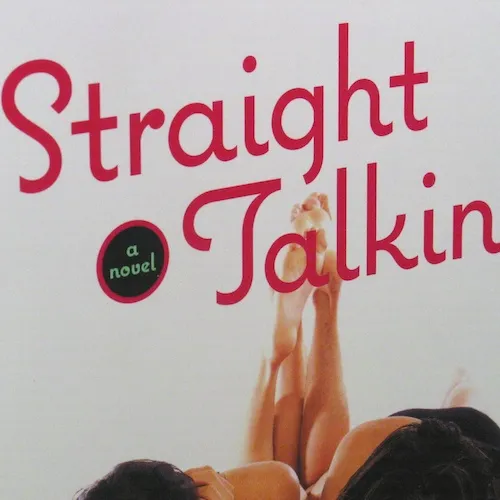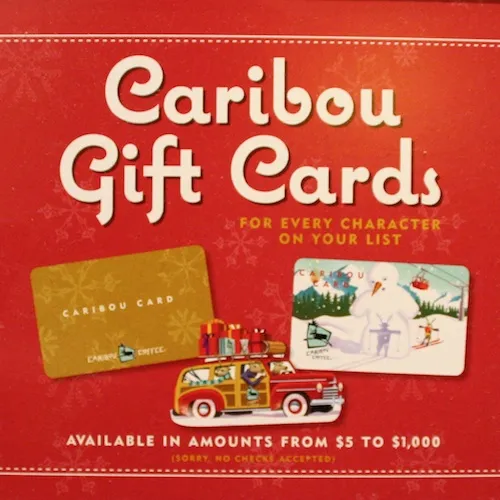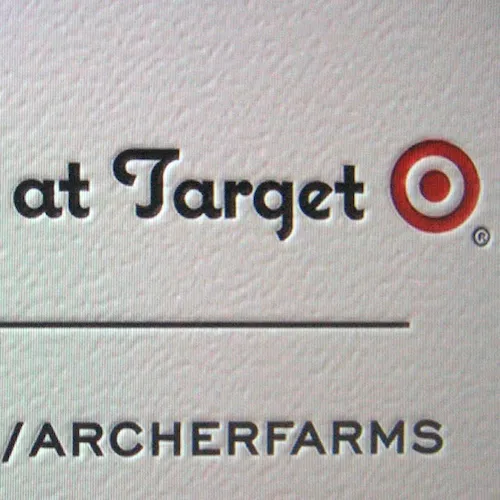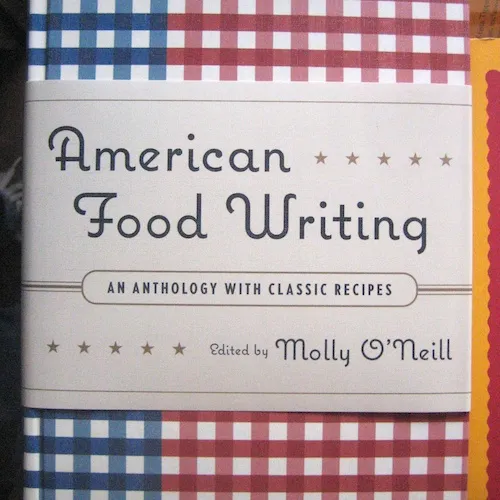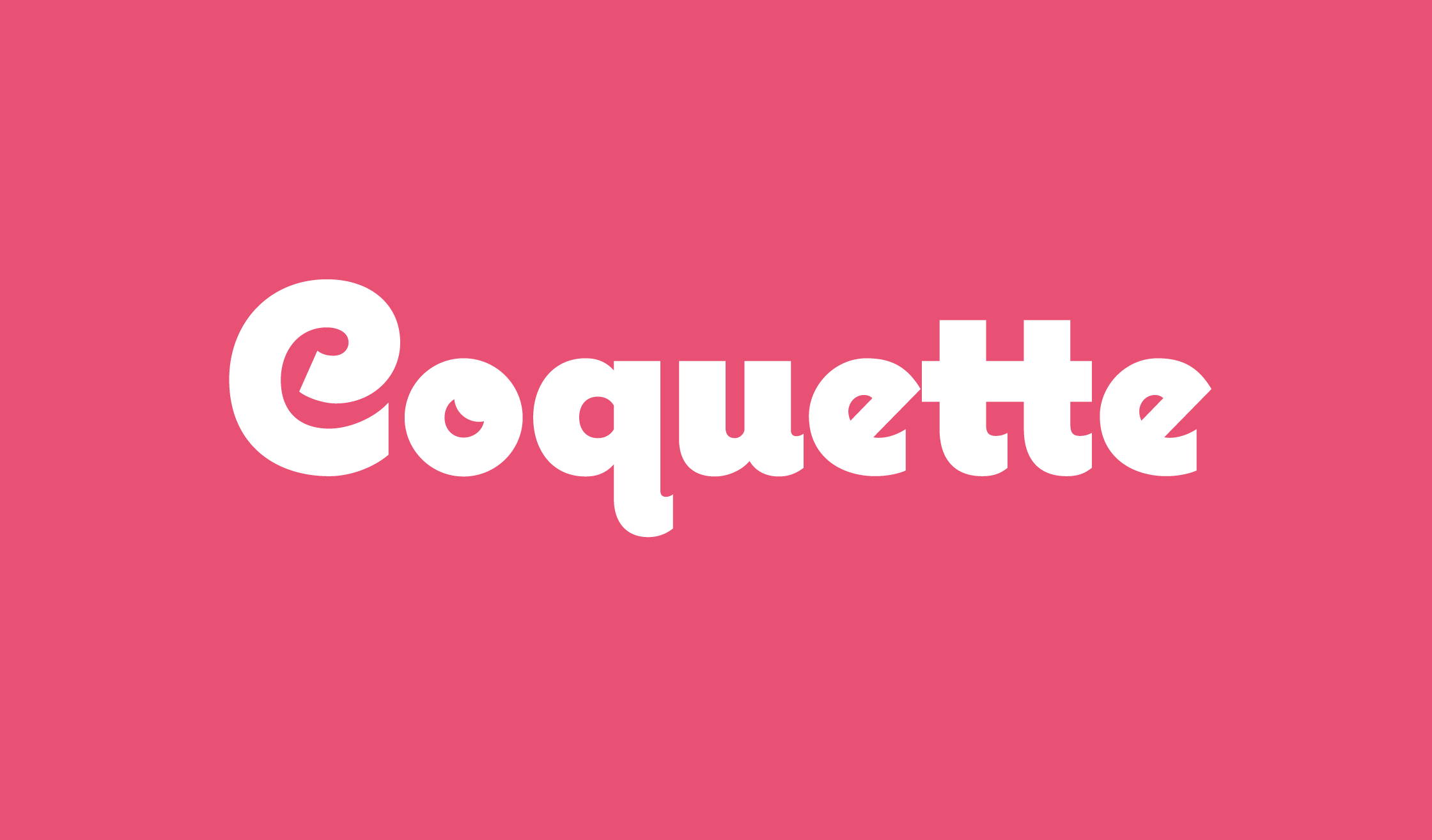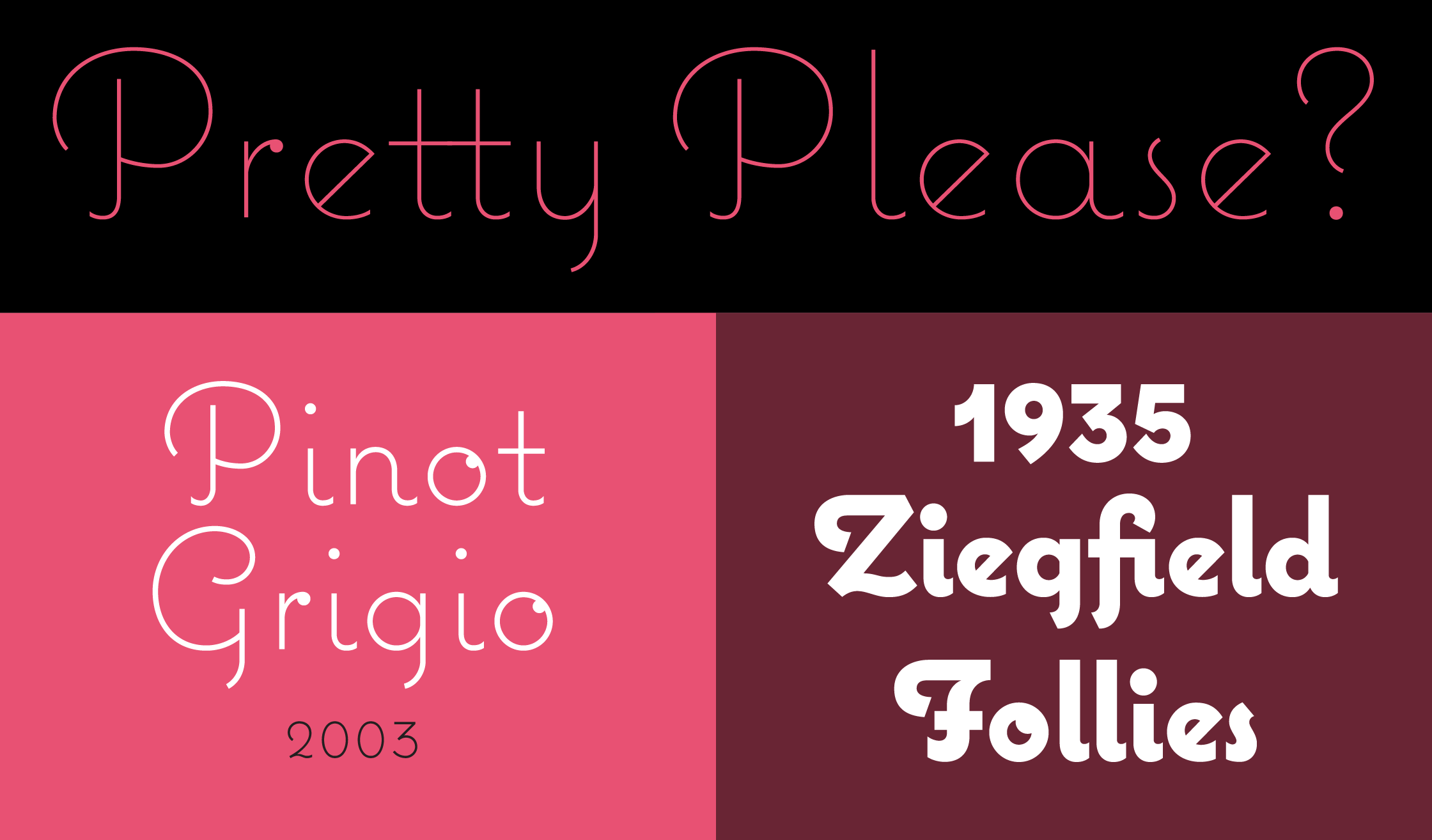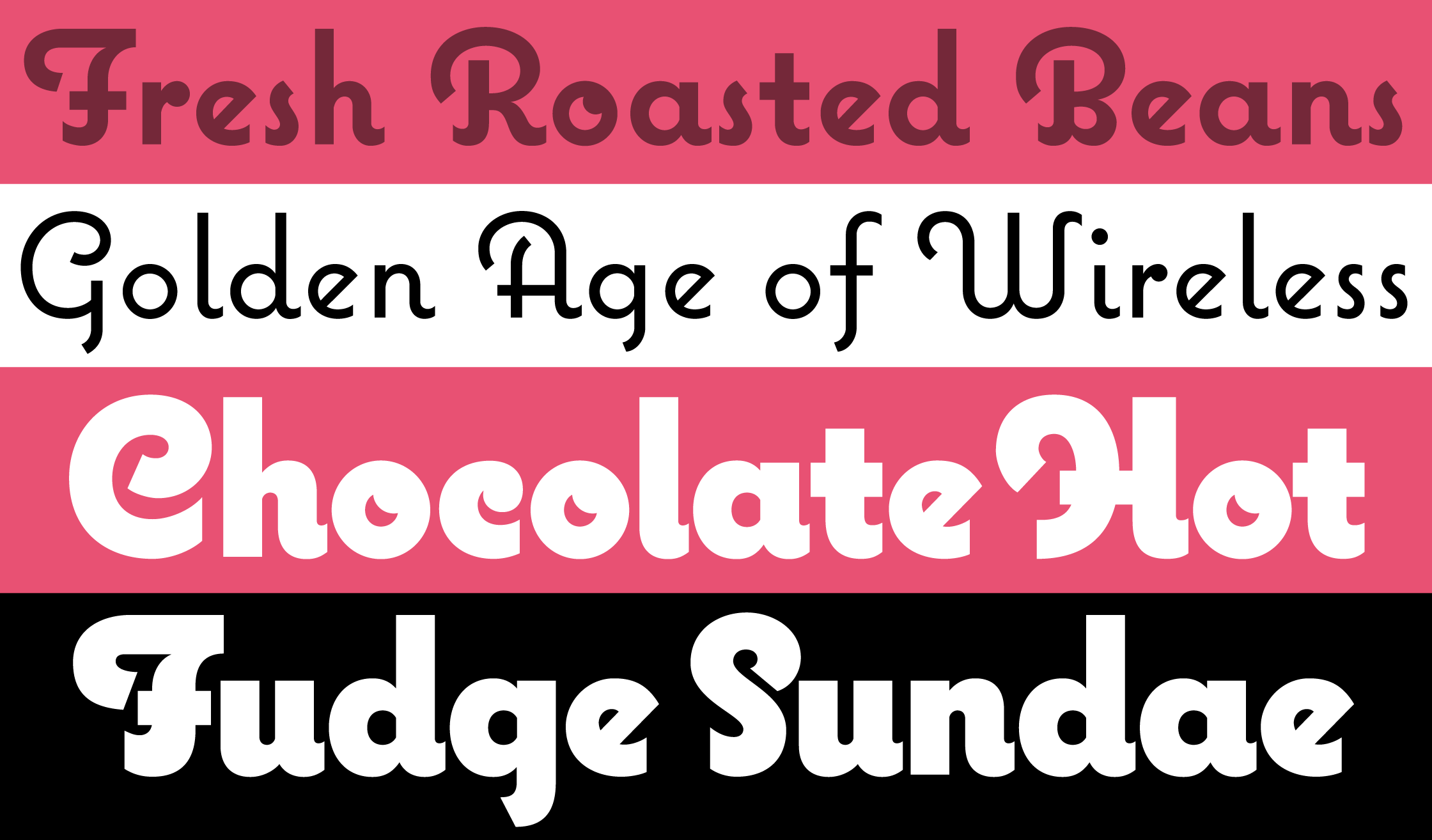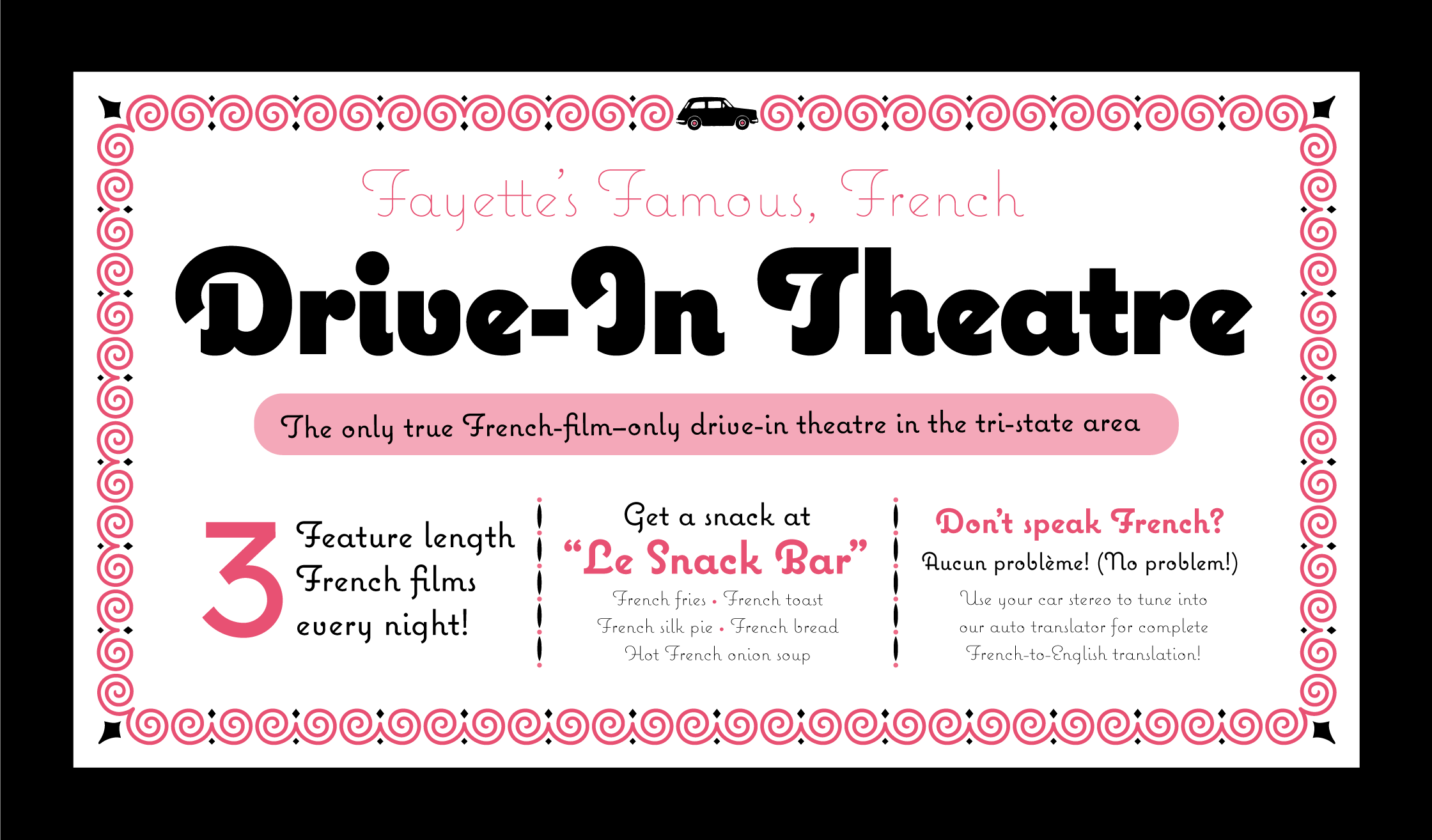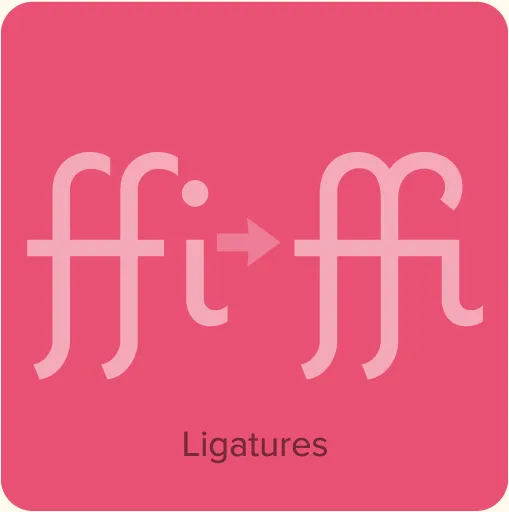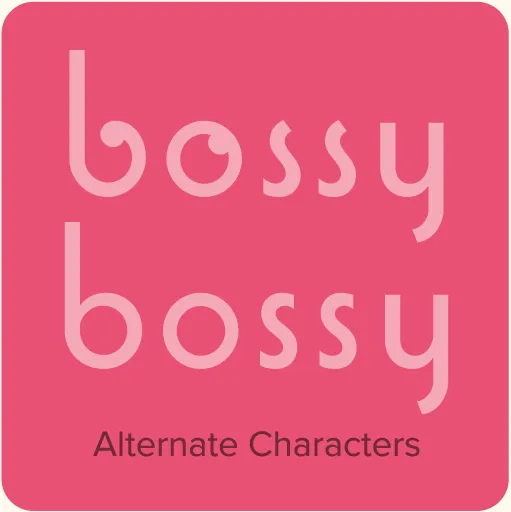
Coquette (2001, 2017) is an unconnected upright script, a sort of hybrid between French scripts, such as Typo Upright, and 1930s-era geometric sans serifs, such as Kabel. The idea for this typeface came to me in the early ’90s while I was designing a logo. It took me several tries over several years to get it to look the way I wanted it to, a process that taught me a lot about type design and drawing letters. Since its release, it’s become one of my more popular fonts, which is very gratifying since it’s my favorite of all the fonts I’ve designed. In 2017, I expanded the original three weights (Light, Regular, and Bold) to six with the addition of Thin, Extrabold, and Black. I also added several alternate characters (lowercase b, o, s, and ampersand) as well as arbitrary fractions, superscript, a full set of f-ligatures, and a bunch of math characters which were not included in earlier versions.
Coquette Features
- Six weights: Thin, Light, Regular, Bold, Extrabold, and Black.
- Full set of f-ligatures.
- Alternate characters: Blobless b and o, plain s, and small ampersand. (Accessible via Stylistic Alternates or Stylistic Sets 01–04.)
- Arbitrary fractions (OpenType Fraction feature).
- Superscript.